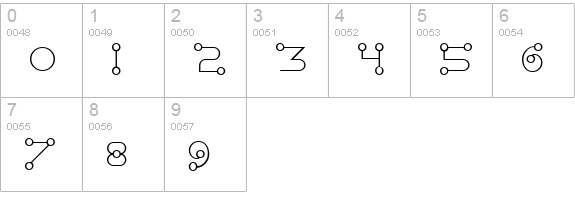
Celestial Alphabet Font Details
The Celestial Alphabet font is a mesmerizing and enchanting typeface inspired by the mystical beauty of the cosmos. Its intricate and otherworldly glyphs evoke a sense of magic and wonder, making it the perfect choice for projects that require a touch of celestial elegance. This font features a unique blend of celestial symbols and letters, creating a harmonious fusion of the earthly and the divine. Its fluid lines and intricate details make it a truly captivating addition to any design. What's even more amazing is that the Celestial Alphabet font is completely free to download at FontsMarket.com. Now, you can bring a touch of celestial magic to your projects without having to spend a single penny. Embrace the celestial beauty of this font and let your creativity soar to new heights.